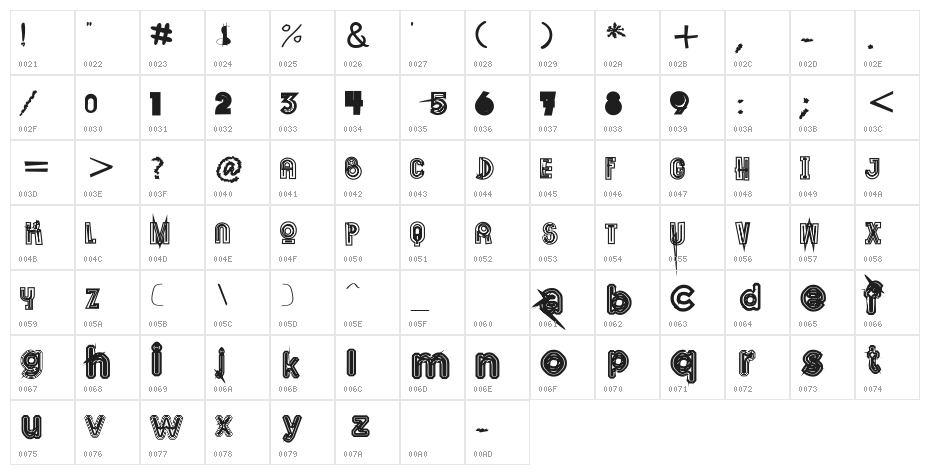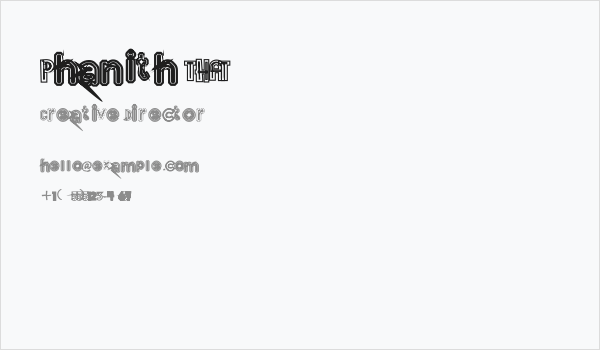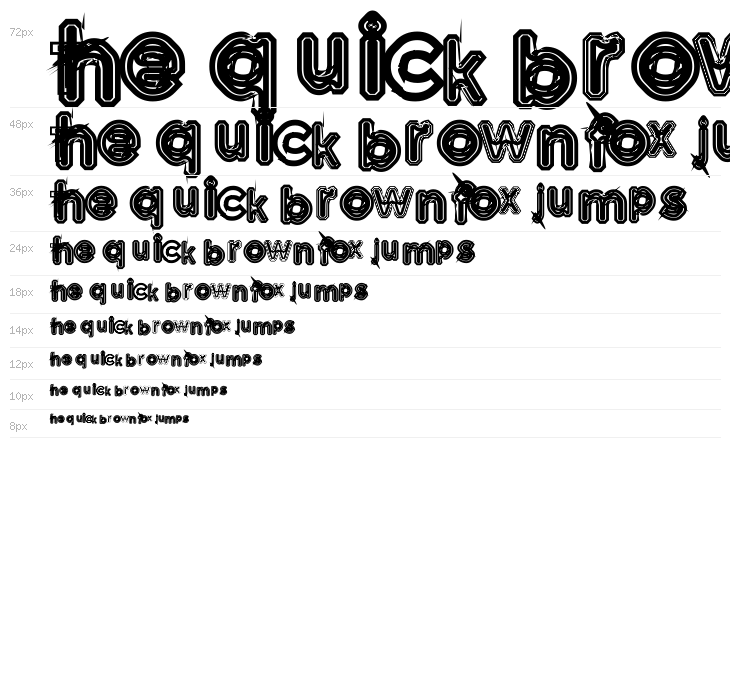
Phanith THAT Font
Phanith THAT Description
This font features a bold, decorative style with a unique, chaotic overlay effect. Each character is outlined with multiple layers, creating a sense of depth and complexity. The uppercase letters have a strong, geometric structure, while the lowercase letters maintain a consistent style with slightly softer edges. Numbers and special characters follow the same intricate design, making the font highly distinctive. The overall appearance is dynamic and eye-catching, suitable for projects that require a bold statement.
| Proposed Projects | Ideal for Halloween-themed designs, posters, album covers, and any project needing a striking, unconventional look. |